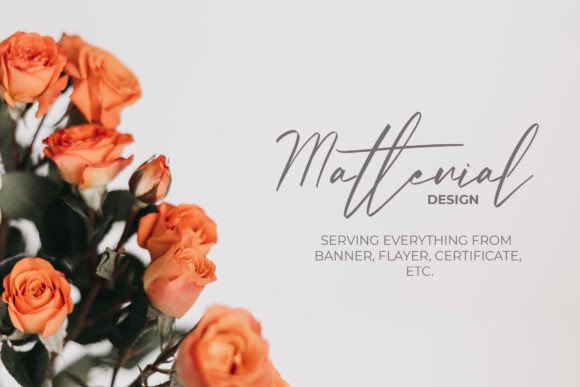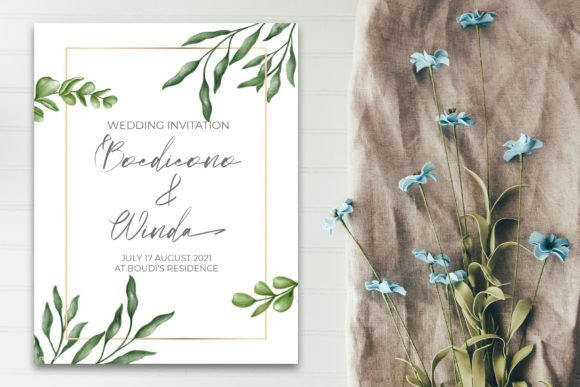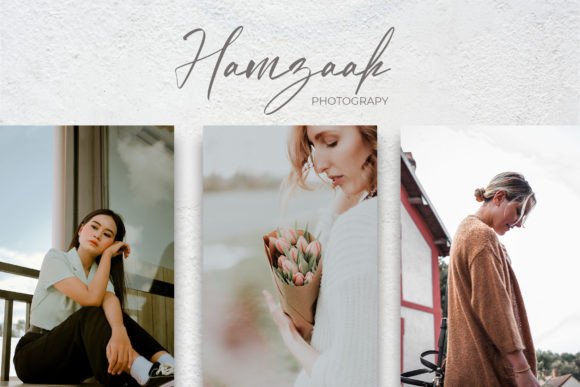
Introduction to Malladive Font
Introducing Malladive, an elegant script handwritten font, masterfully constructed for a sophisticated, feminine prowess.
The charm of Malladive cascades from its unique shape and character combinations, designed to imbue an appealing graphic presentation for any project it takes on Its individuality reaches out to incorporate diverse language adaptability, thus asserting its multilingual support.
Key Features of Malladive Font